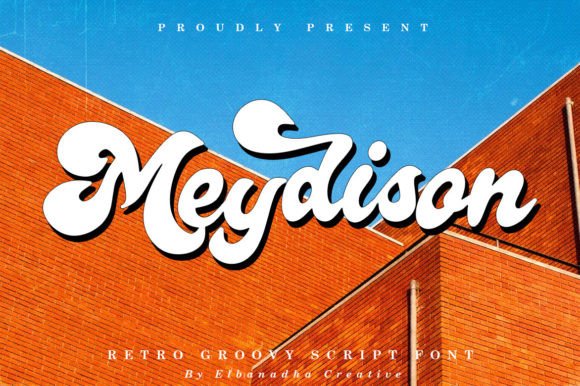
Take a voyage back in time with Meydison, a retro and groovy display font that oozes personality and charm. Inspired by the swinging '70s, this font is a visual delight that transports you to an era of bell bottoms, disco balls, and unforgettable style. With its playful curves, groovy serifs, and a touch of vintage flair, Meydison is the perfect font to add a retro twist to any creative project.
Unleash your creativity with Meydison's remarkable versatility. It's a font that effortlessly adapts to a wide range of design projects, from eye-catching logos and branding to stylish homeware designs. Whether you're crafting product packaging that pops or creating mugs with quirky quotes, Meydison's got you covered. Its unique character shines through in posters and shopping bags, making them stand out from the crowd.
Meydison is the font that brings your words to life. Its groovy charm adds a personal touch to T-shirts, book covers, and name cards, making them more than just ordinary objects. Meydison transforms invitations and greeting cards into works of art, carrying your heartfelt messages with a touch of retro elegance. Its distinct style elevates labels and photography, adding a touch of nostalgia that captures hearts.
With Meydison, you'll create watermarks that leave a lasting impression, adding a unique touch to your special events. It's the perfect font to capture the essence of your brand or project, making it truly unforgettable. Meydison is a font that speaks to the heart, evoking emotions and creating connections.
Imagine your designs taking center stage, captivating hearts with Meydison's retro charm. It's a font that breathes life into your creations, turning them into masterpieces that resonate with your audience.Meydison is more than just a font; it's a time machine that takes you on a nostalgic journey. Embrace the groovy vibes and let Meydison add a touch of retro magic to your designs.